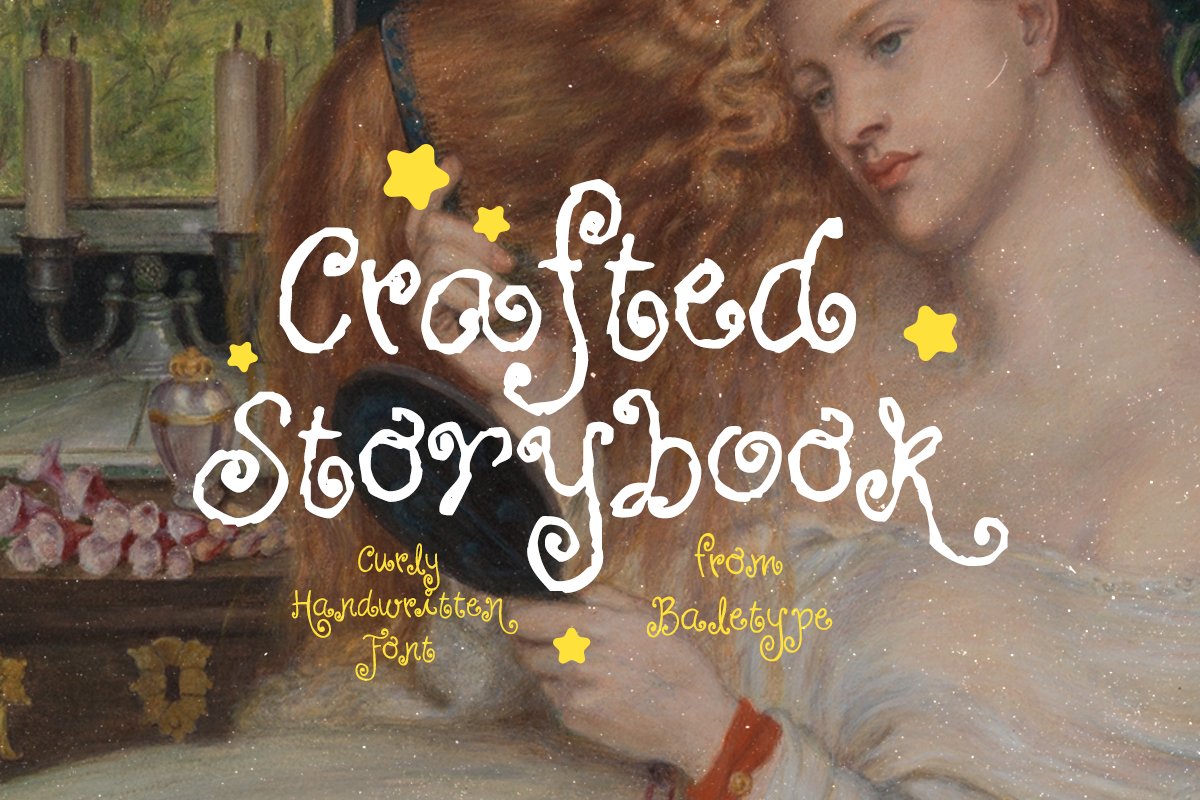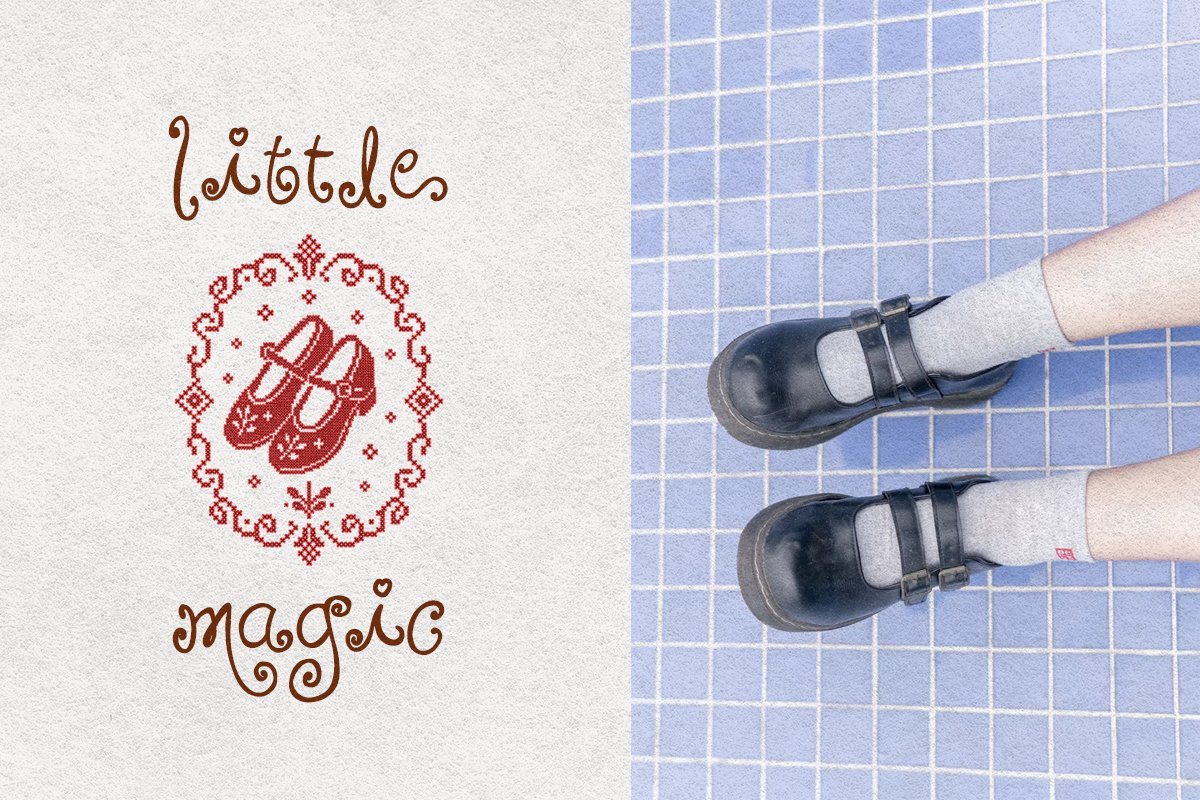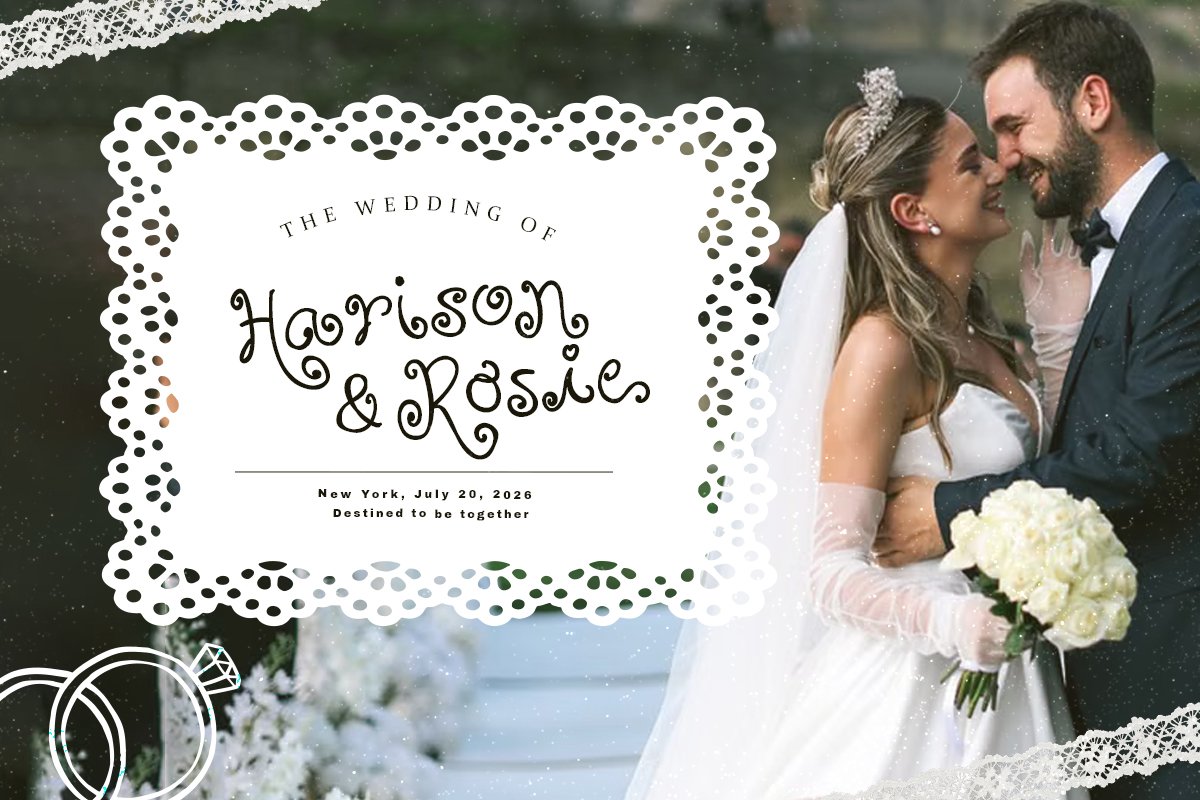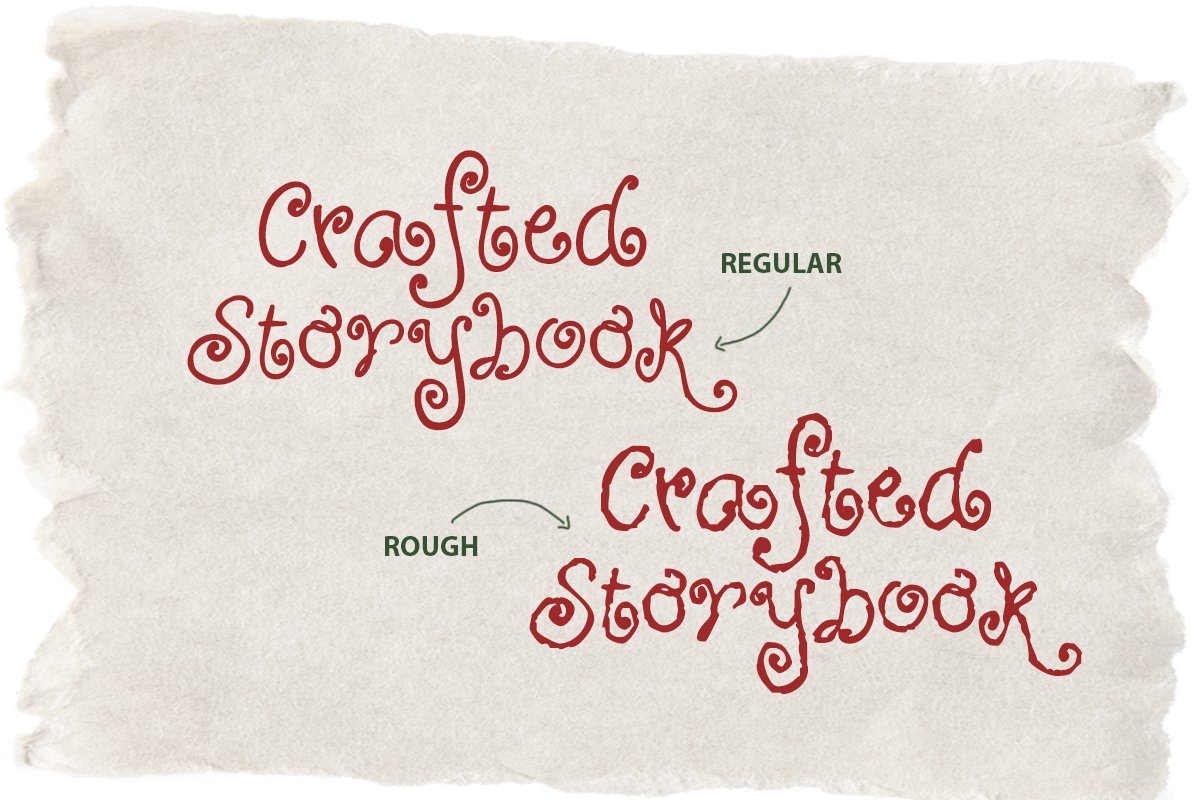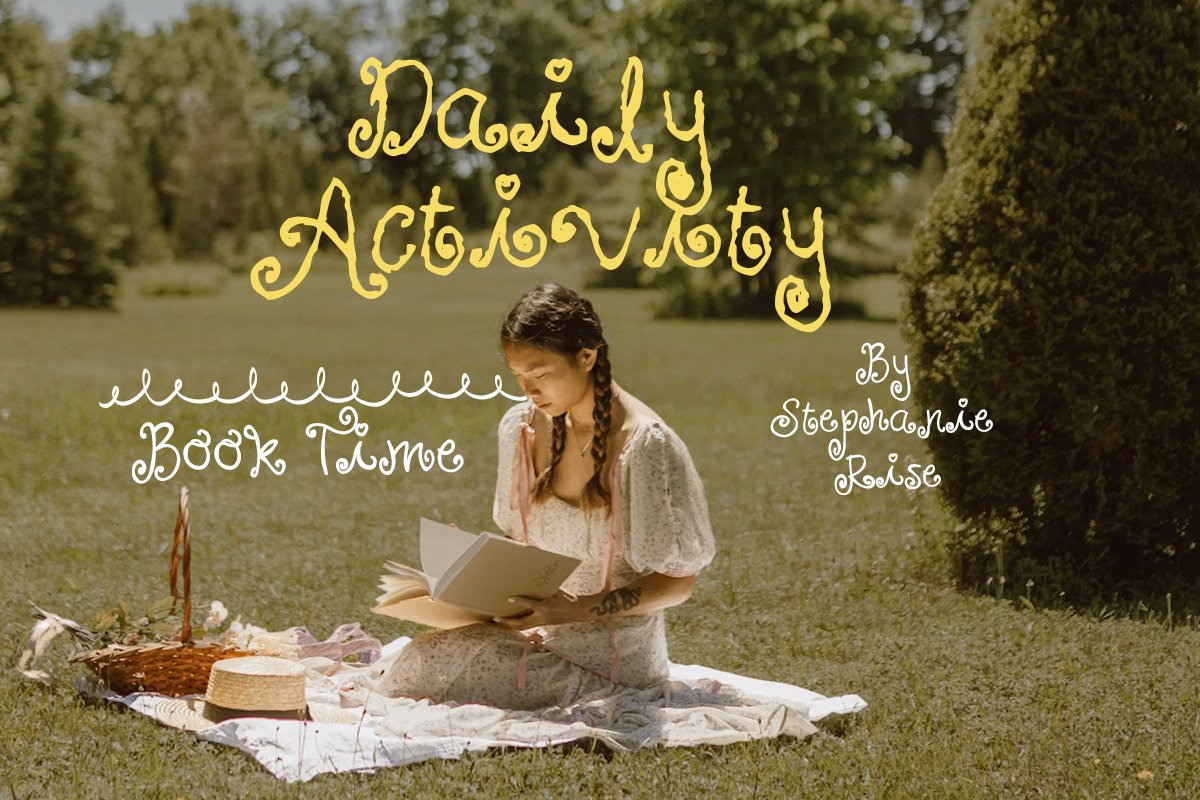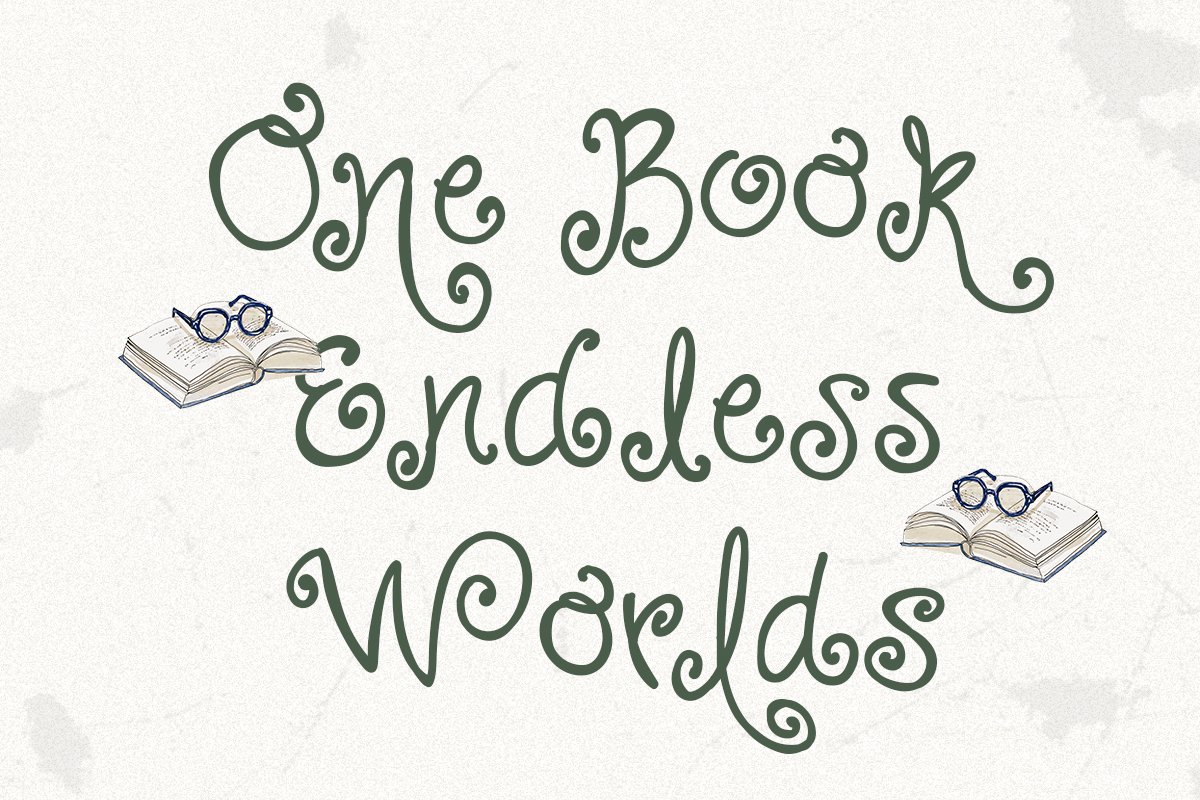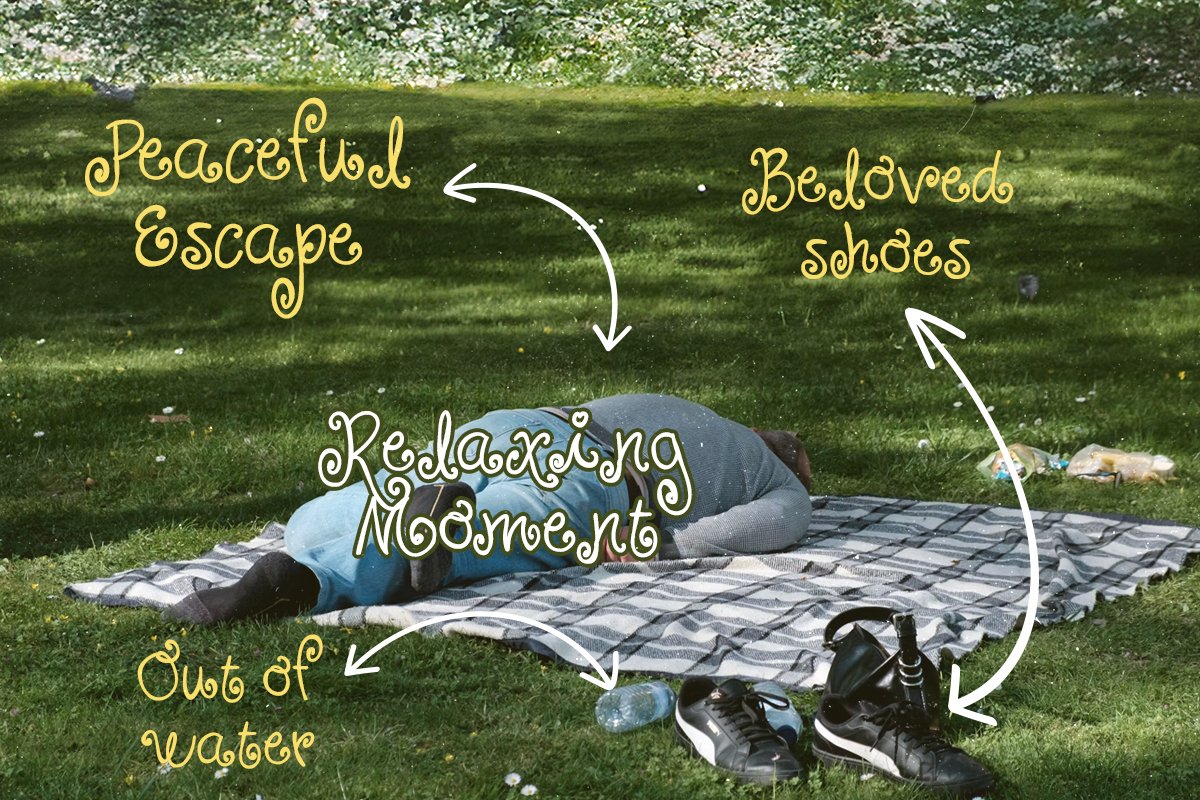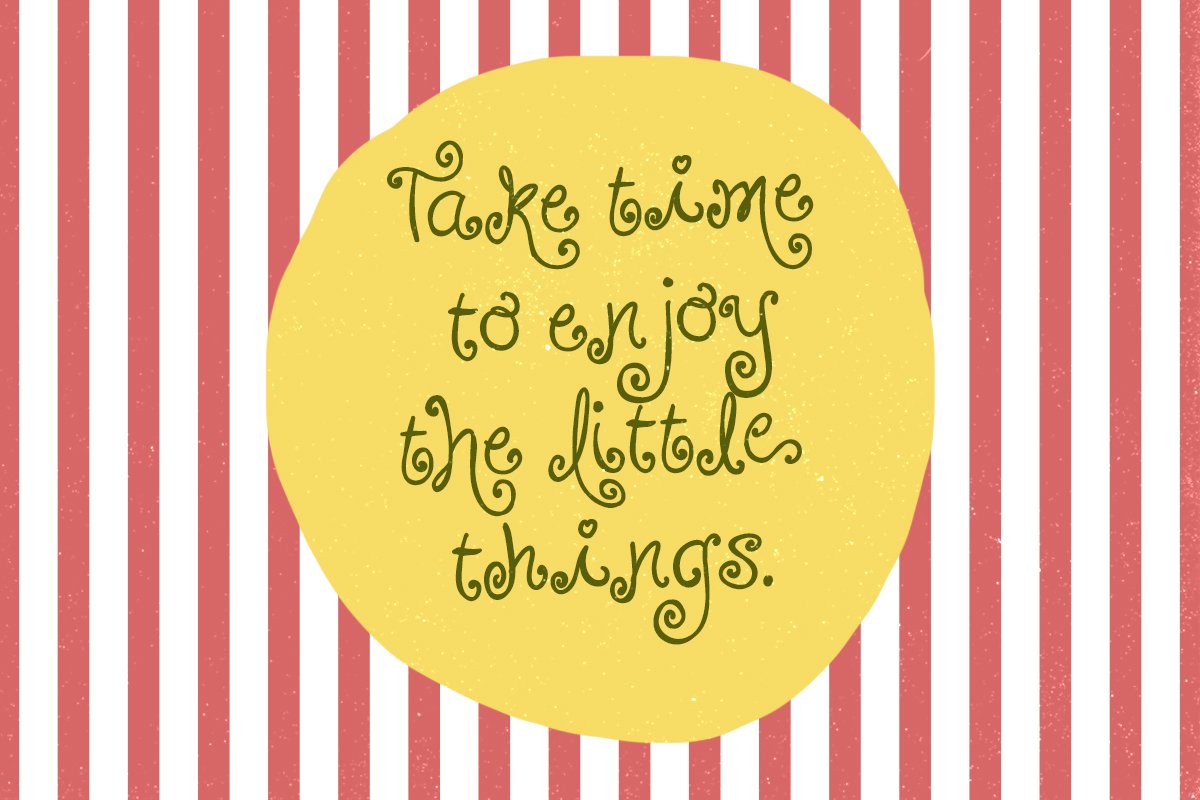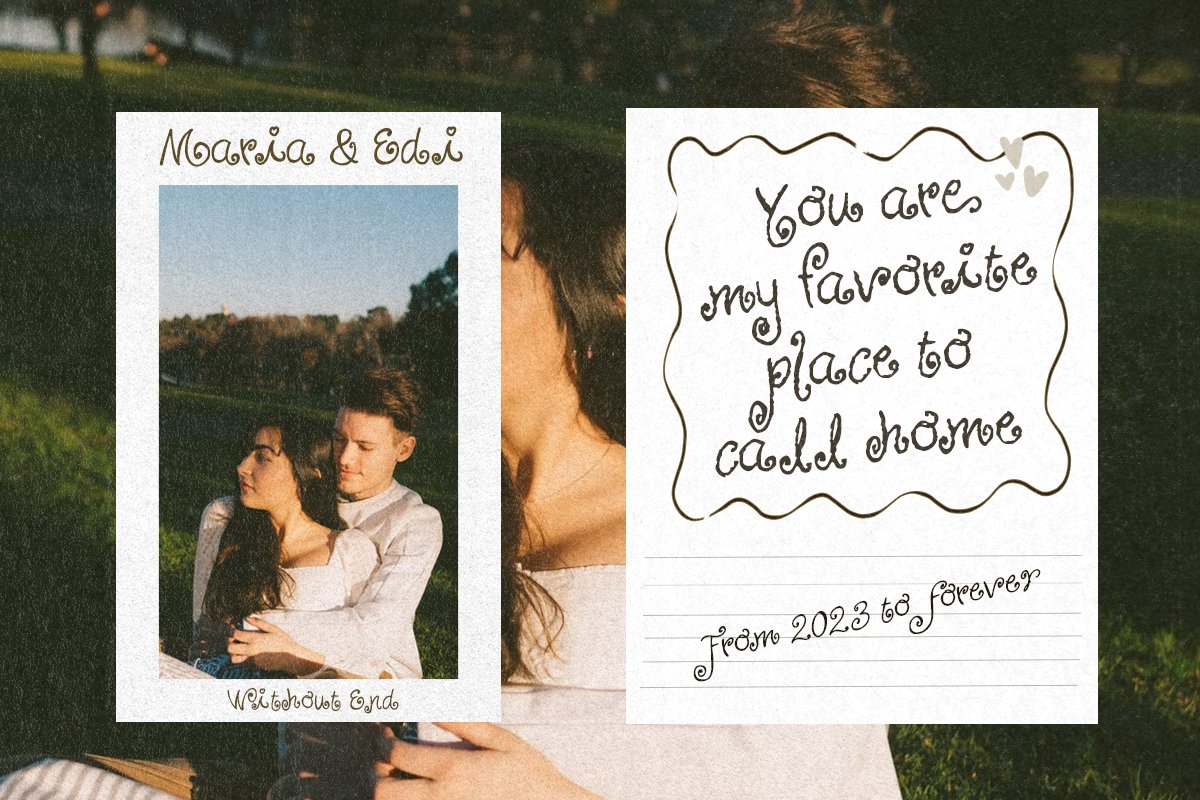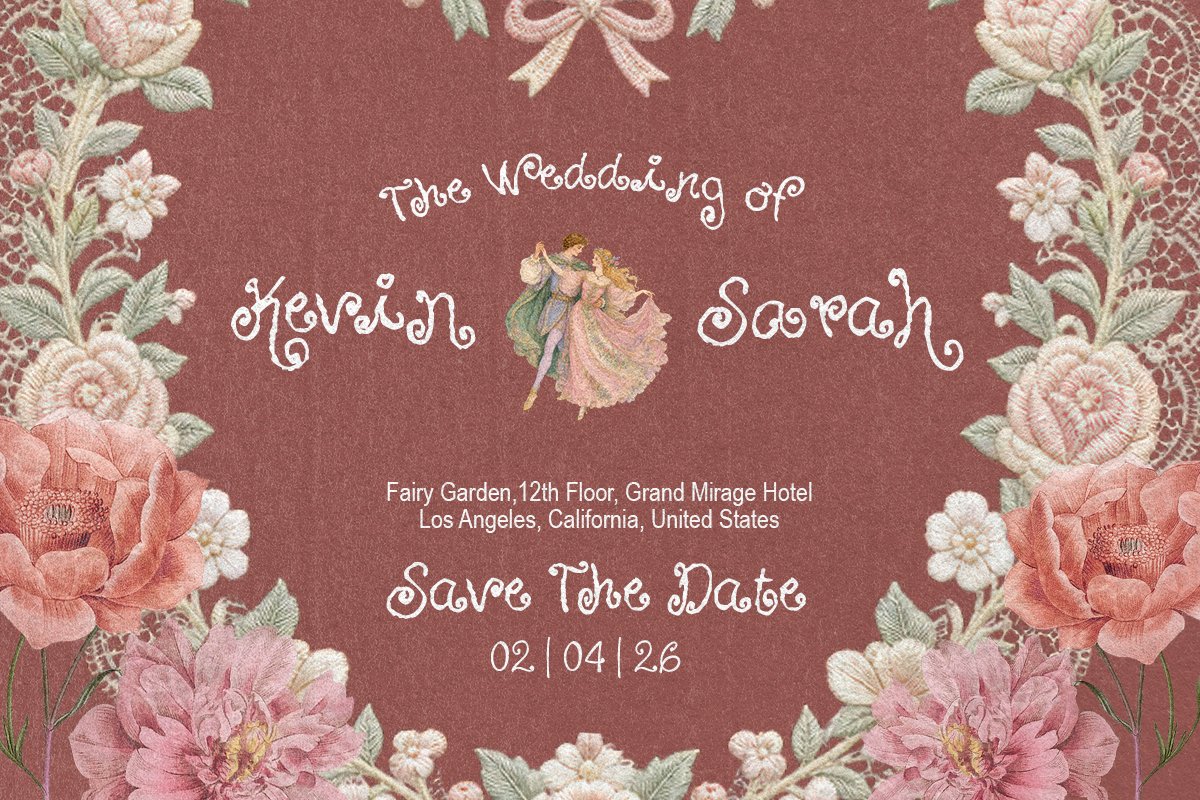
Introducing Crafted Storybook, a sweet and charming handwritten script font with playful swirls and a feminine touch. Its delicate letterforms bring a lovely, romantic feel to any design, making it perfect for cute and girly projects. Featuring a collection of beautiful swirly alternates, Crafted Storybook gives you the freedom to create eye-catching typography and add an extra touch of personality to your work. Perfect for branding, logotypes, quotes, wedding invitations, stationery, packaging, social media designs, and more, this versatile script can effortlessly make your projects feel more unique and memorable. You can choose between the Regular and Rough version that suits your design. This font also includes multilingual support, making it a wonderful choice for creative projects around the world.
Crafted Storybook – Rough Curly Font
Introducing Crafted Storybook, a sweet and charming handwritten script font with playful swirls and a feminine touch.